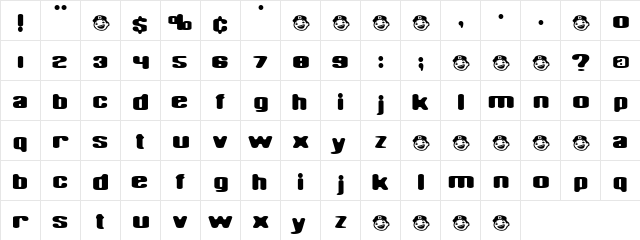
CoralSea Regular
Design Context for CoralSea Typeface
CoralSea is a composed and adaptable typeface that performs quietly and consistently across a wide range of design contexts.